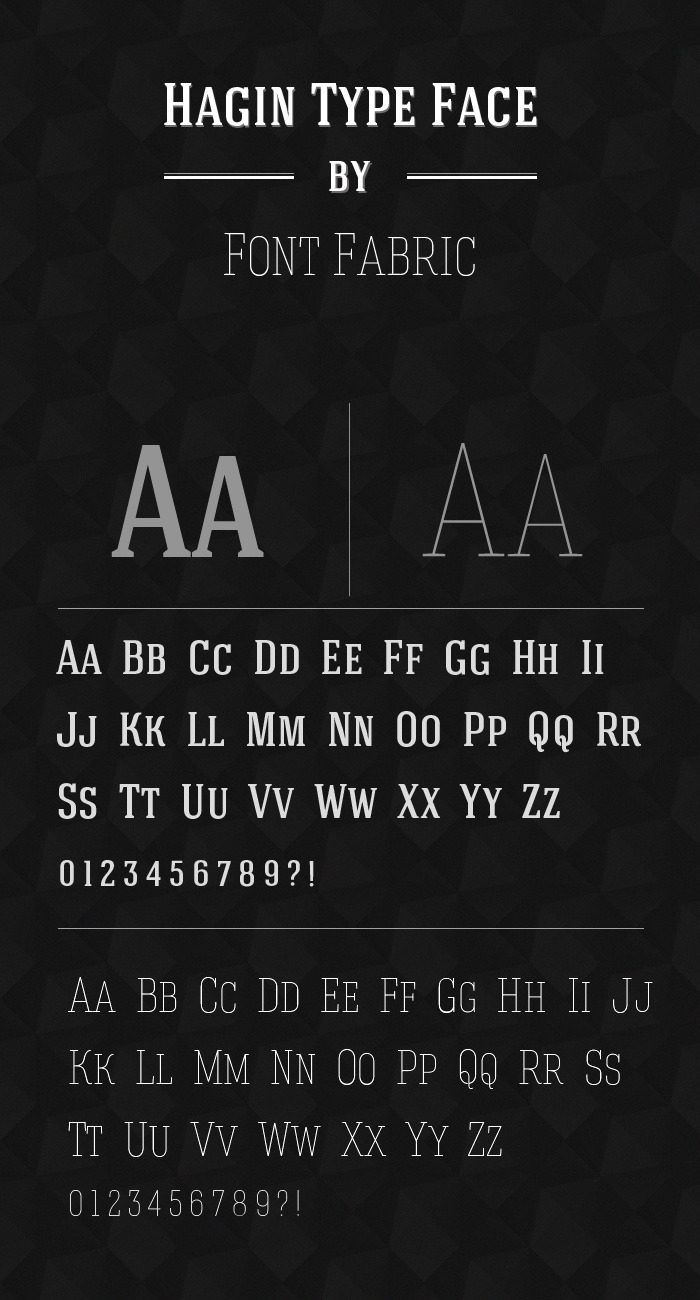
Hagin is a new serif free font from Fontfabric constructed with strong geometric forms in ”old school” style. (via Hagin Free Font by Fontfabric | Fontfabric™)